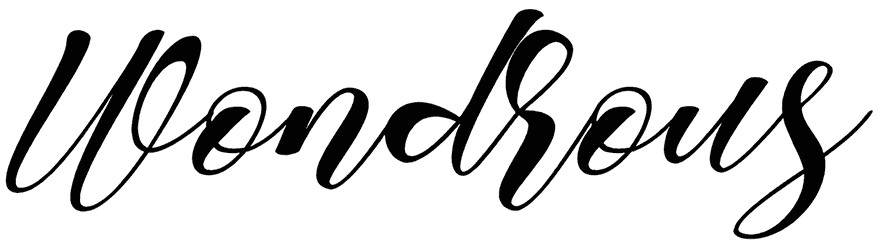
Wondrous Font
Wondrous is a calligraphy font that works wonderfully for conveying feelings of love and passion. You may put this script font to use for wedding invitations, the artwork you create for Valentine’s Day, or any other proj…
Wondrous is a calligraphy font that works wonderfully for conveying feelings of love and passion. You may put this script font to use for wedding invitations, the artwork you create for Valentine’s Day, or any other project that asks for an upbeat and friendly appearance and feel. Check out the rest of our many fonts if you want to find more creative cursive fonts.